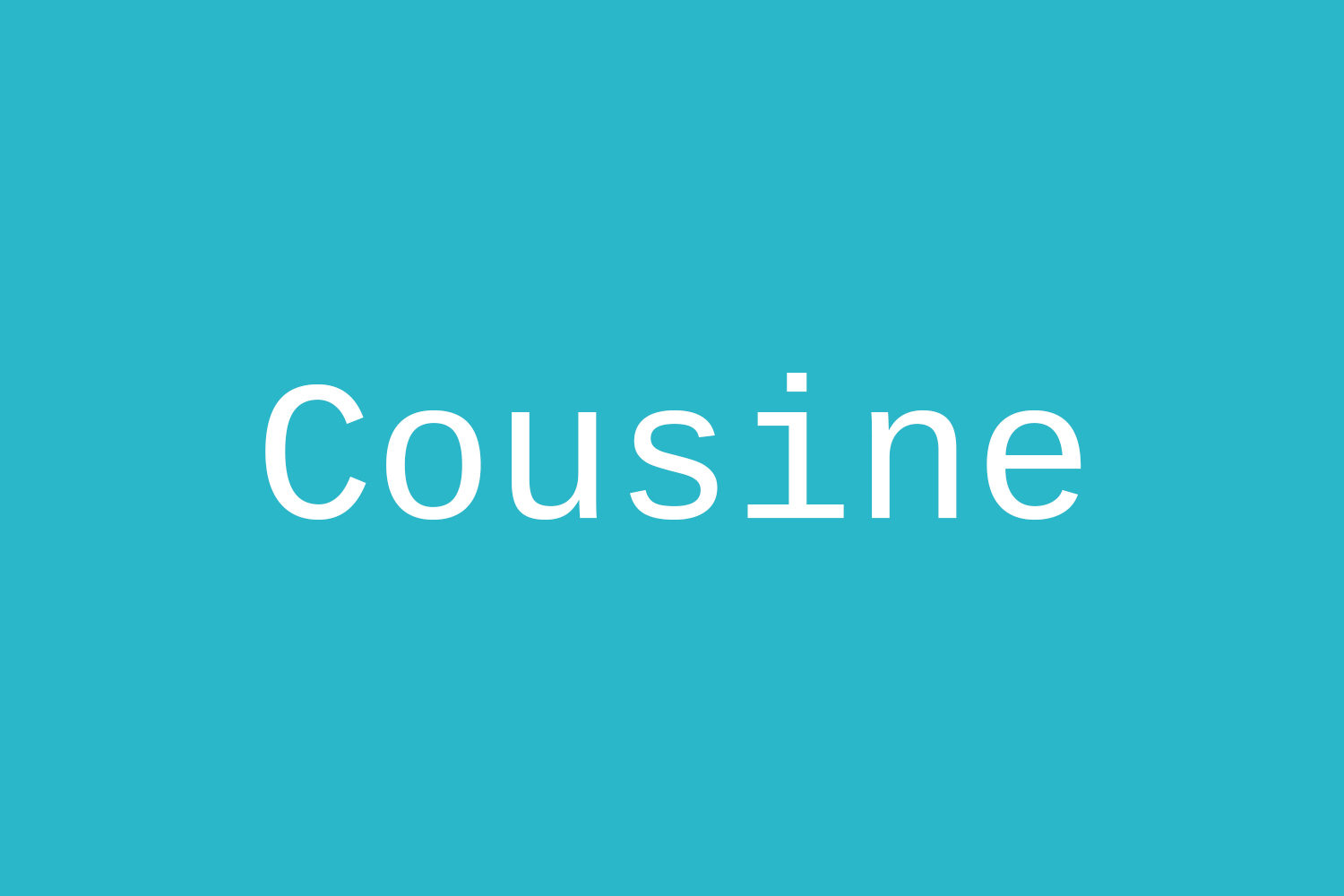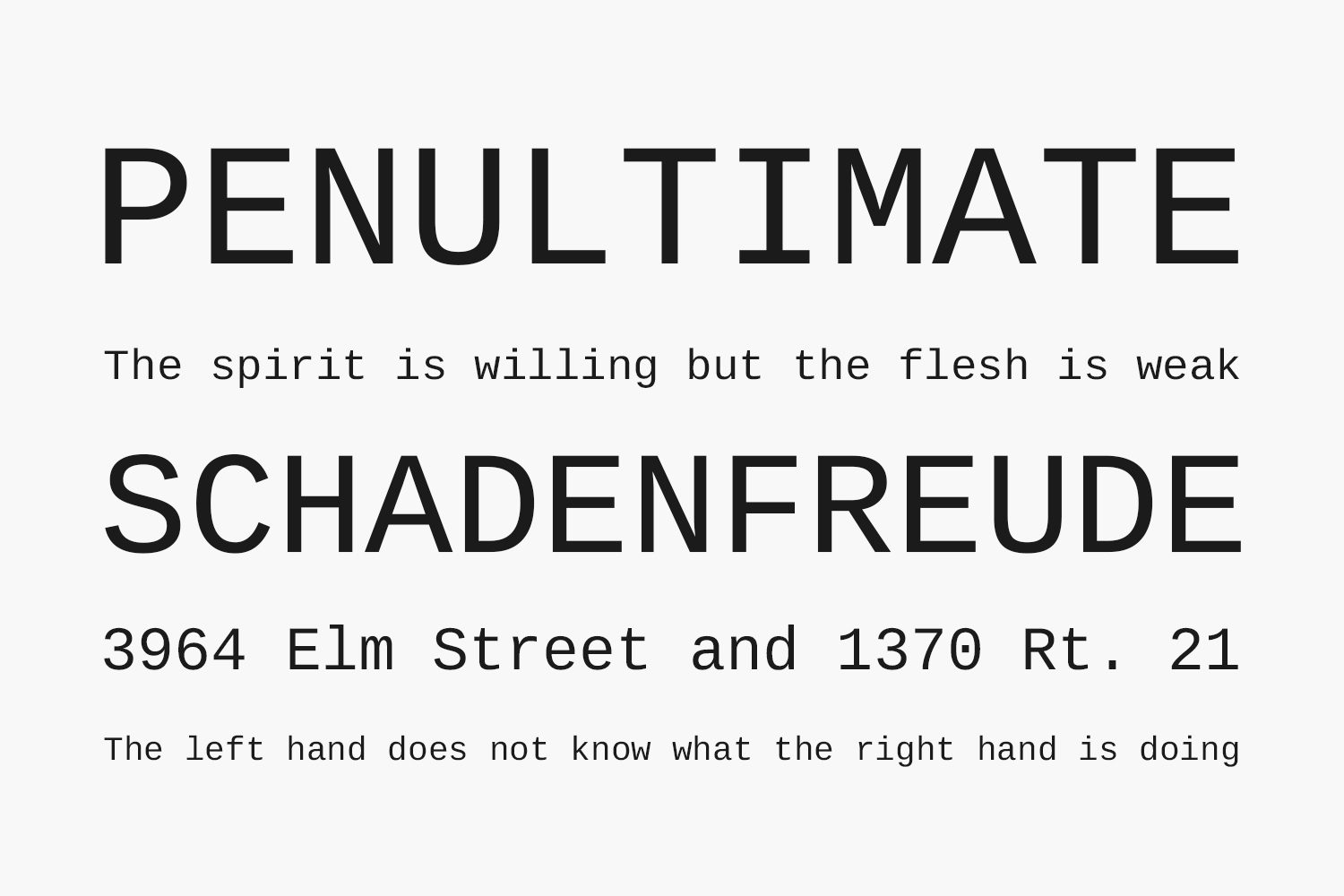
Cousine Free Font Family was designed by Steve Matteson as an innovative, refreshing sans serif design that is metrically compatible with Courier New. Cousine offers improved on-screen readability characteristics and the pan-European WGL character set and solves the needs of developers looking for width-compatible fonts to address document portability across platforms.
Designed by Ascender Fonts